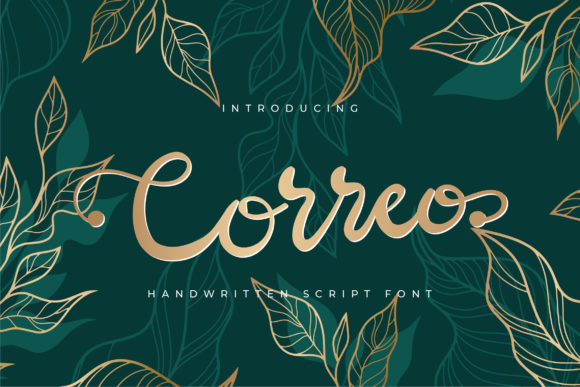
Step into a realm of enchantment with Correo Font, a mesmerizing script font handcrafted to captivate your senses. Its graceful lines and elegant curves evoke a feeling of timeless beauty, reminiscent of the artistry of yesteryear. Experience the ultimate in typography as Correo transforms your words into a symphony of visual delight.
Indulge in the romance of Correo's intricate swashes, delicately adorning each letter with a touch of whimsical charm. Watch as your designs blossom with a unique and alluring personality, captivating the hearts of all who behold them. Whether you're crafting heartfelt wedding invitations, composing enchanting greeting cards, or designing captivating branding materials, Correo will elevate your creations to new heights of sophistication and grace.
Embrace the versatility of Correo, a font that seamlessly adapts to a myriad of design aesthetics. From the timeless elegance of classic designs to the bold and contemporary styles of modern art, Correo seamlessly blends in, enhancing your creations with a touch of understated luxury. Unleash your creativity and explore the endless possibilities that await you with this versatile and captivating font.
Correo's PUA encoding opens up a world of creative opportunities, granting you effortless access to a treasure trove of glyphs and swashes. With just a few clicks, you can unlock a symphony of typographic variations, adding an extra layer of depth and dimension to your designs. Experiment with different combinations to create stunning monograms, eye-catching logos, and intricate embellishments that will leave a lasting impression.
Take your designs to new heights of sophistication with Correo Font, a carefully crafted masterpiece that embodies the essence of elegance and charm. Its enchanting curves and delicate swashes will transform your creations into works of art, captivating the hearts and minds of all who encounter them. Embrace the beauty of Correo and unlock the true potential of your design endeavors.